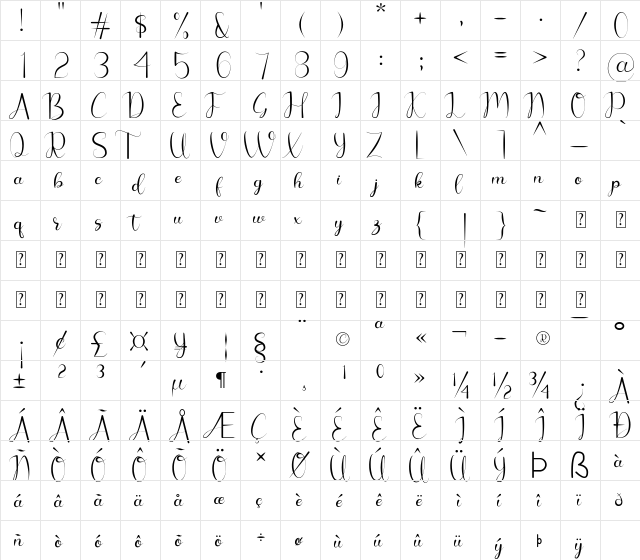
Chelosia Regular
Design Context for Chelosia Typeface
Chelosia is a composed and adaptable typeface that performs quietly and consistently across a wide range of design contexts.
Pro Tip: Use Chelosia in both headline and body roles to test its range before committing to a single application.